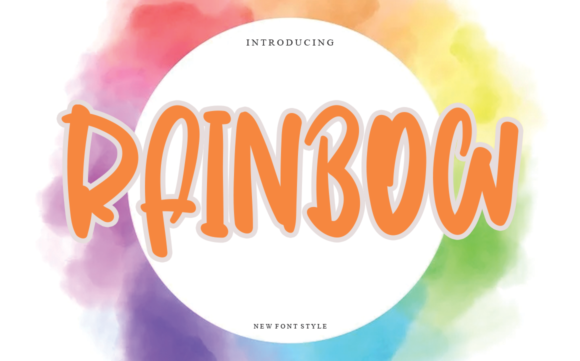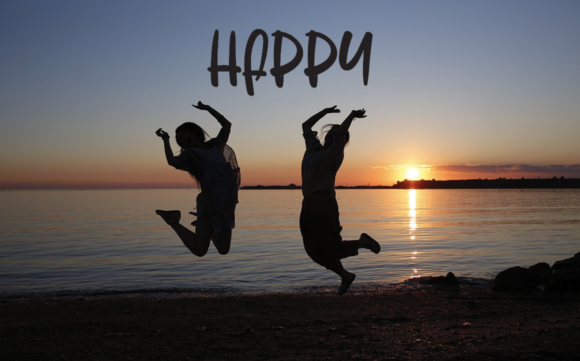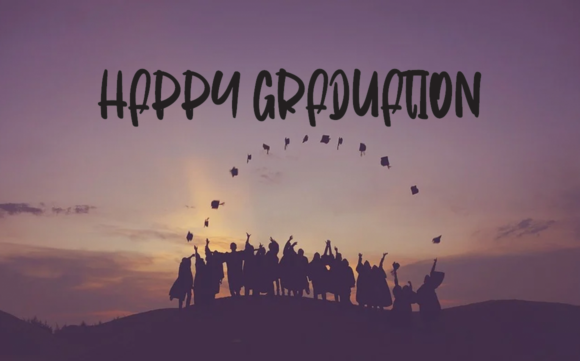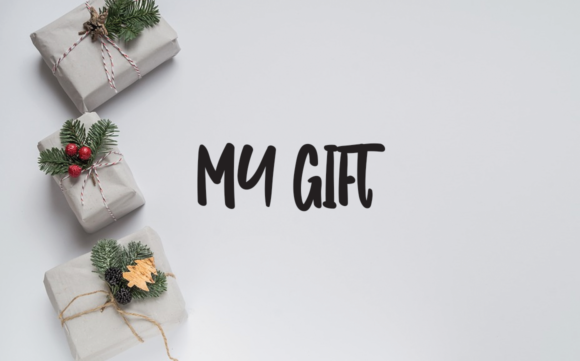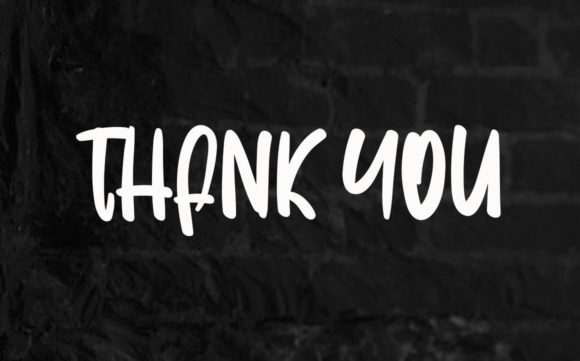
Rainbow Font
About Rainbow Font
Rainbow is a relaxed, quirky and friendly handwritten font. Whether you use it for cartoon related designs, children games or just any creation that requires a lovely touch, this font will be an amazing choice.